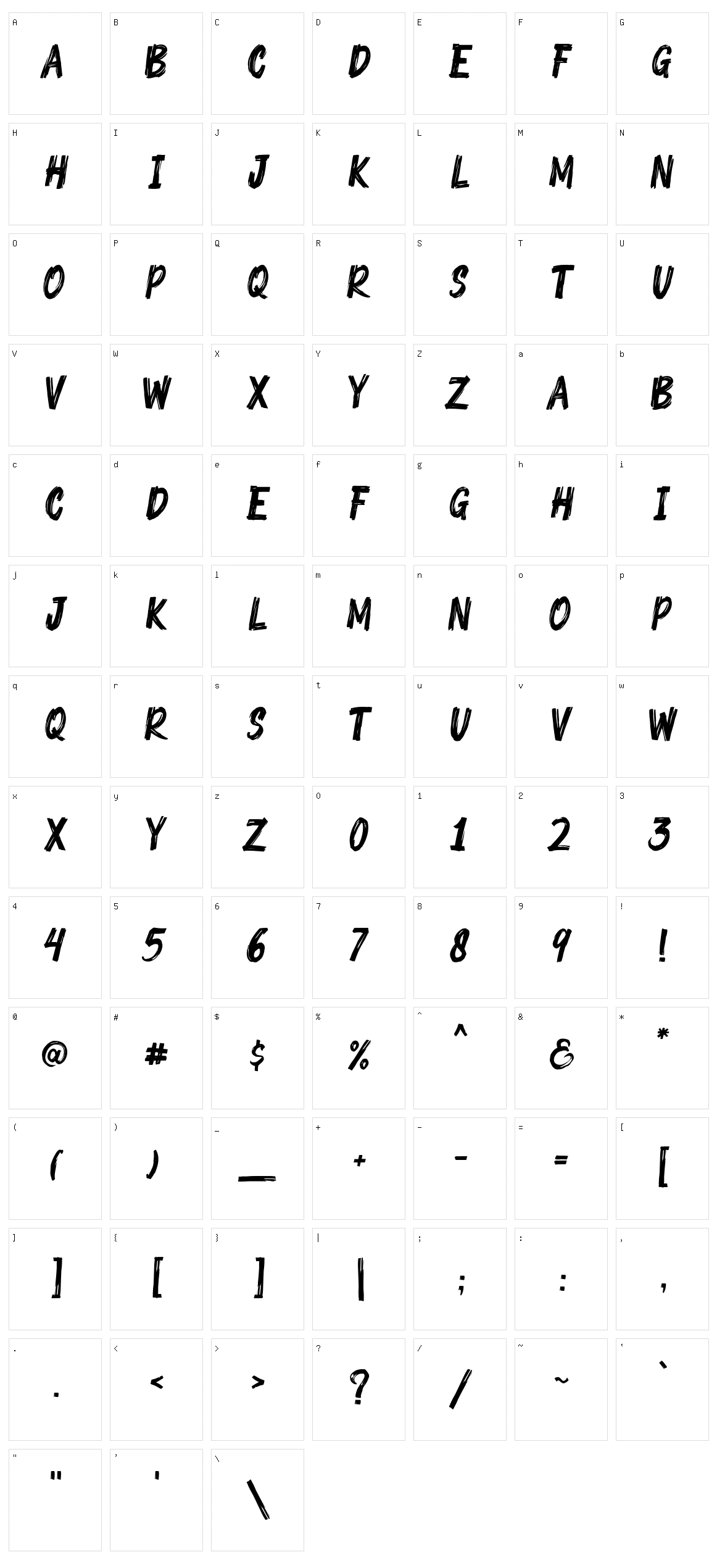
The free font Crushed Stone is carefully designed by Hanzel Graphic, showcasing a thoughtful balance of creativity and usability and falls under the Script font style. When you download the ZIP file, it contains only 96.82 KB of font files, making it lightweight and quick to download. Please review the license details below to understand permitted usage and distribution rights. If license information is not available, we recommend using this font for personal projects only or contacting the author directly for commercial usage permissions.